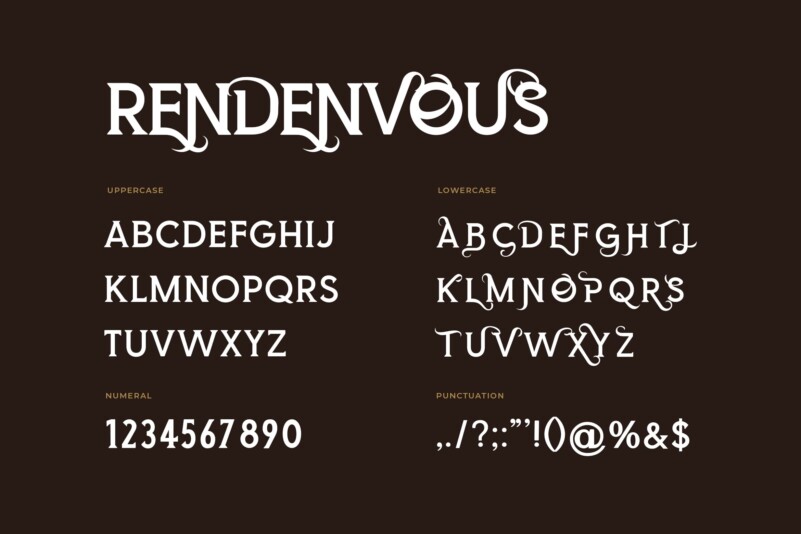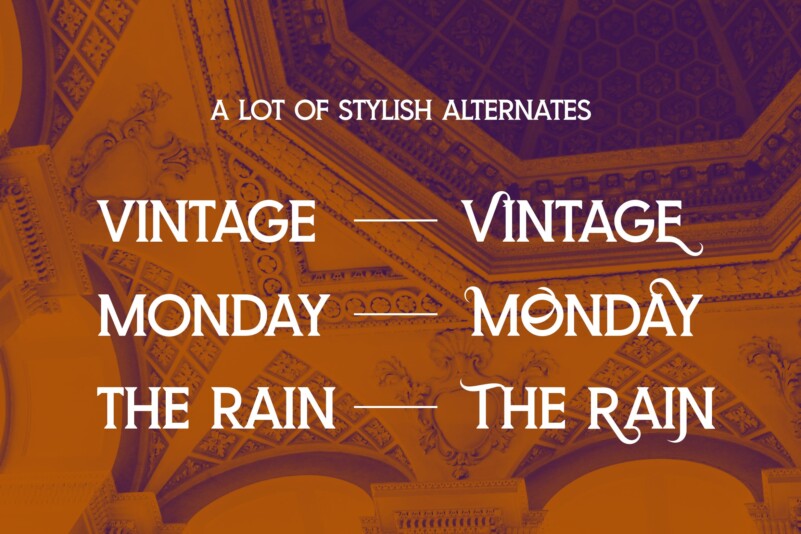
Rendenvous Font
Rendenvous Font is a bold serif typefaace created by UICreative with classic touch. It has a combination of letters that are simple and upright, giving a strong and formal impression. With its unique curves and cut-ins making it one of the most memorable caps fonts on the market .This font is perfect for fashion related branding or editorial design and displays both masculine and feminine qualities. This attractive and premium font is perfect for a variety of brands and projects that require clear and classy font types, such as hotels, salons, restaurants, cafes, headlines, posters, community, branding, packaging, presentations, and others.